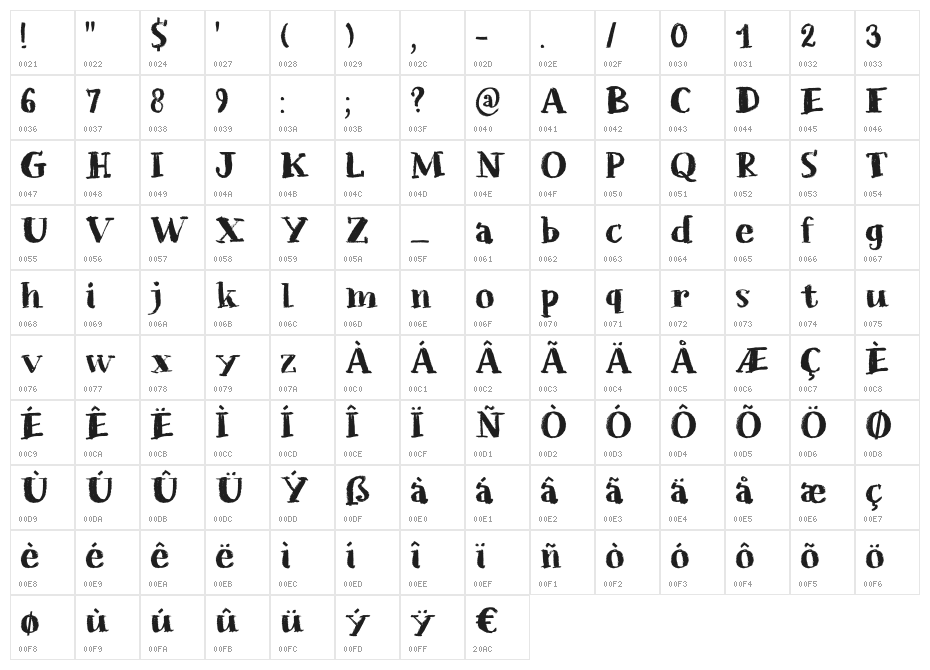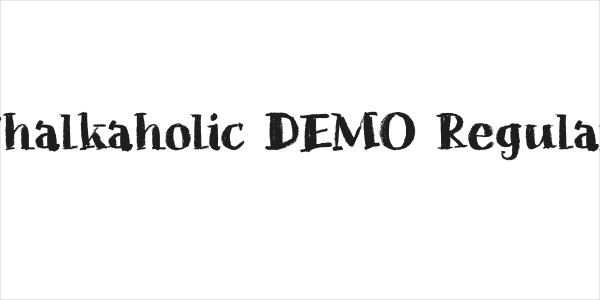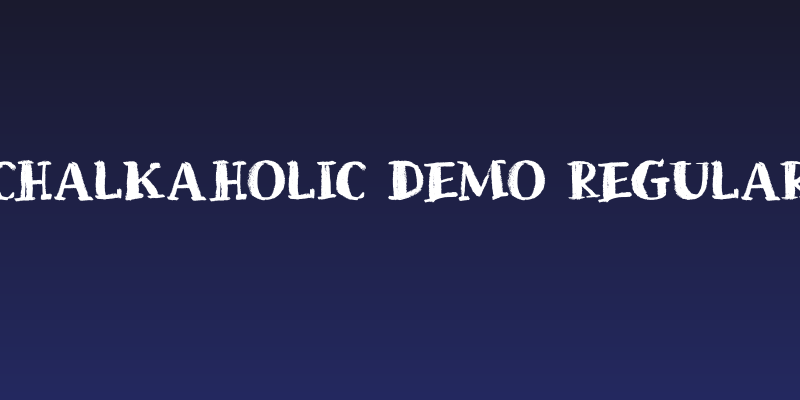
Chalkaholic DEMO Regular Font
Chalkaholic DEMO Regular Description
This font features a bold and expressive style reminiscent of chalk writing. The letters have a textured appearance, giving them a hand-drawn, artistic feel. The uppercase and lowercase characters maintain a consistent style, with slightly uneven edges that add to the organic look. Numbers and special characters are equally bold and maintain the same textured effect. The overall design is playful yet impactful, making it suitable for creative and informal projects. The font's unique style captures attention and conveys a sense of creativity and spontaneity.